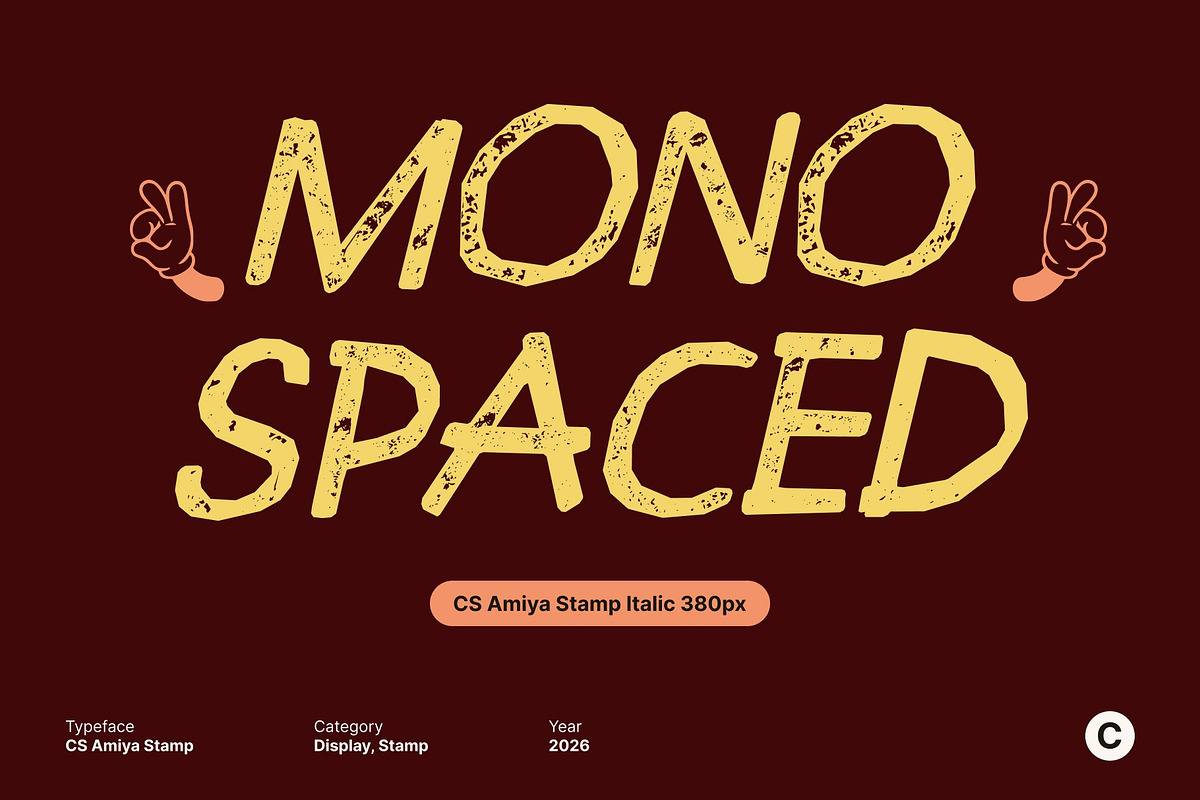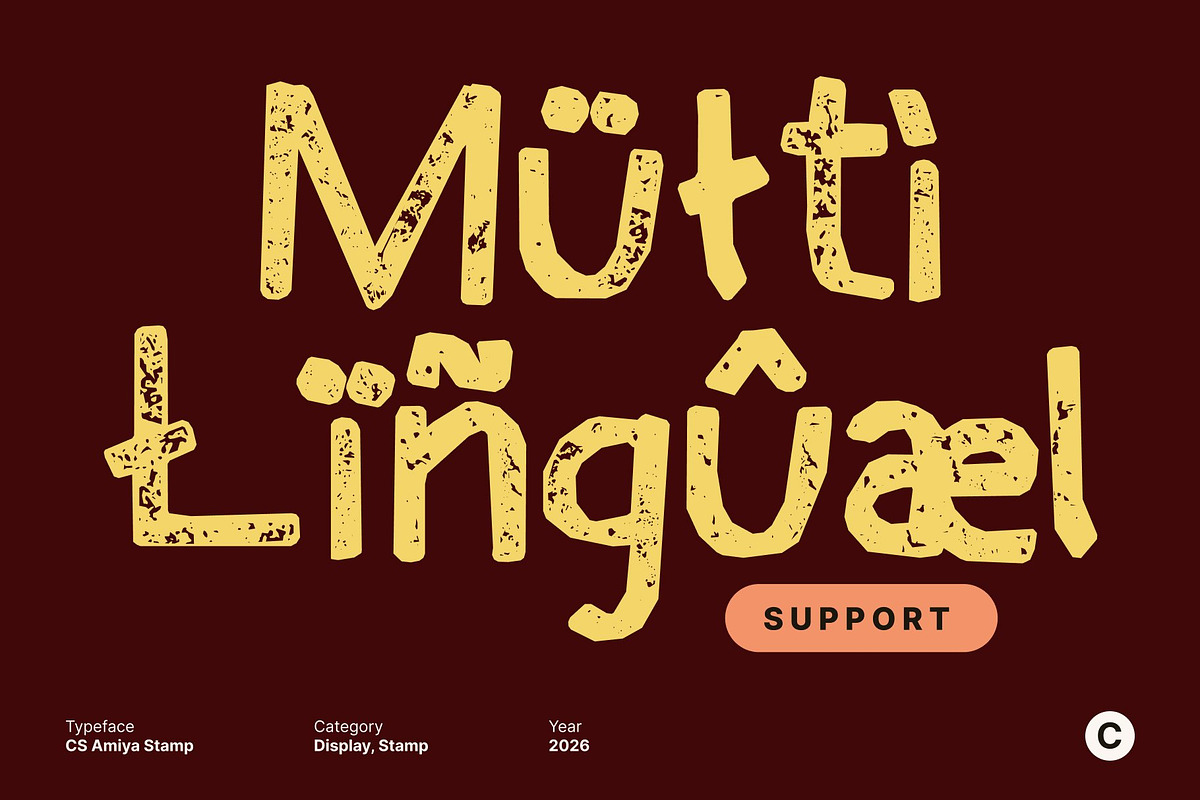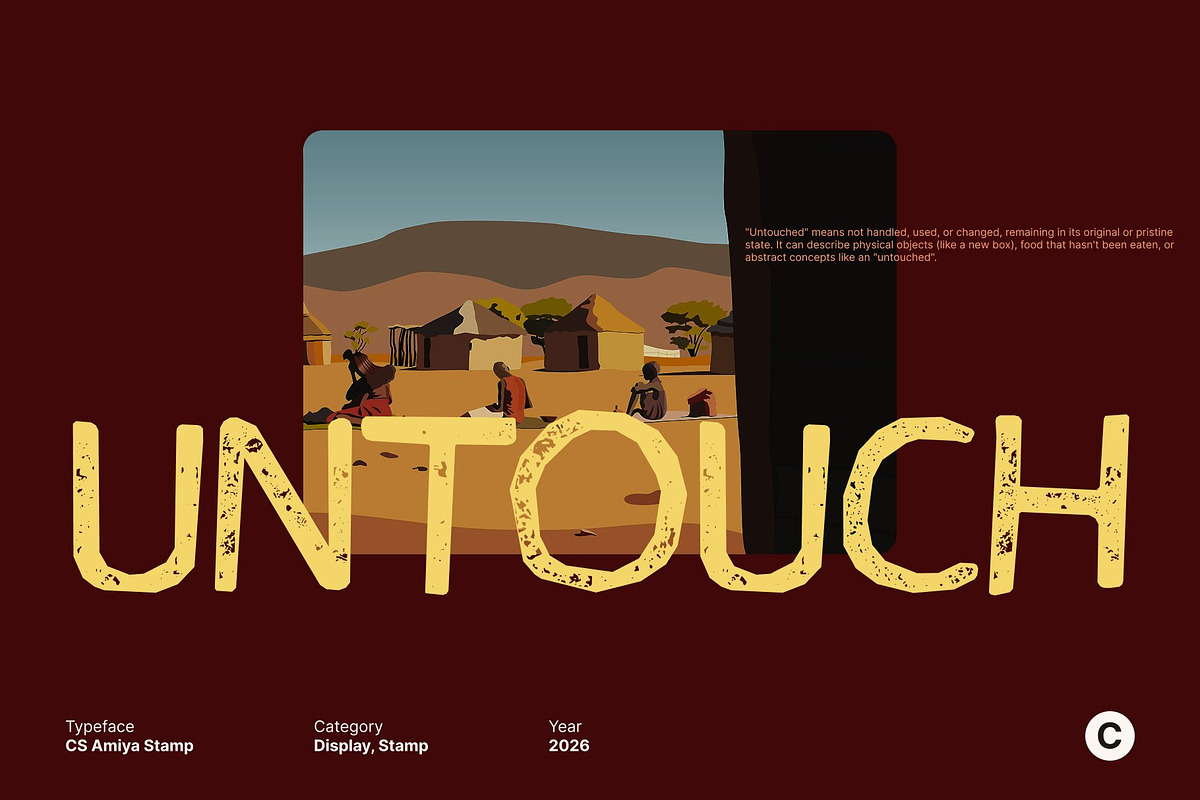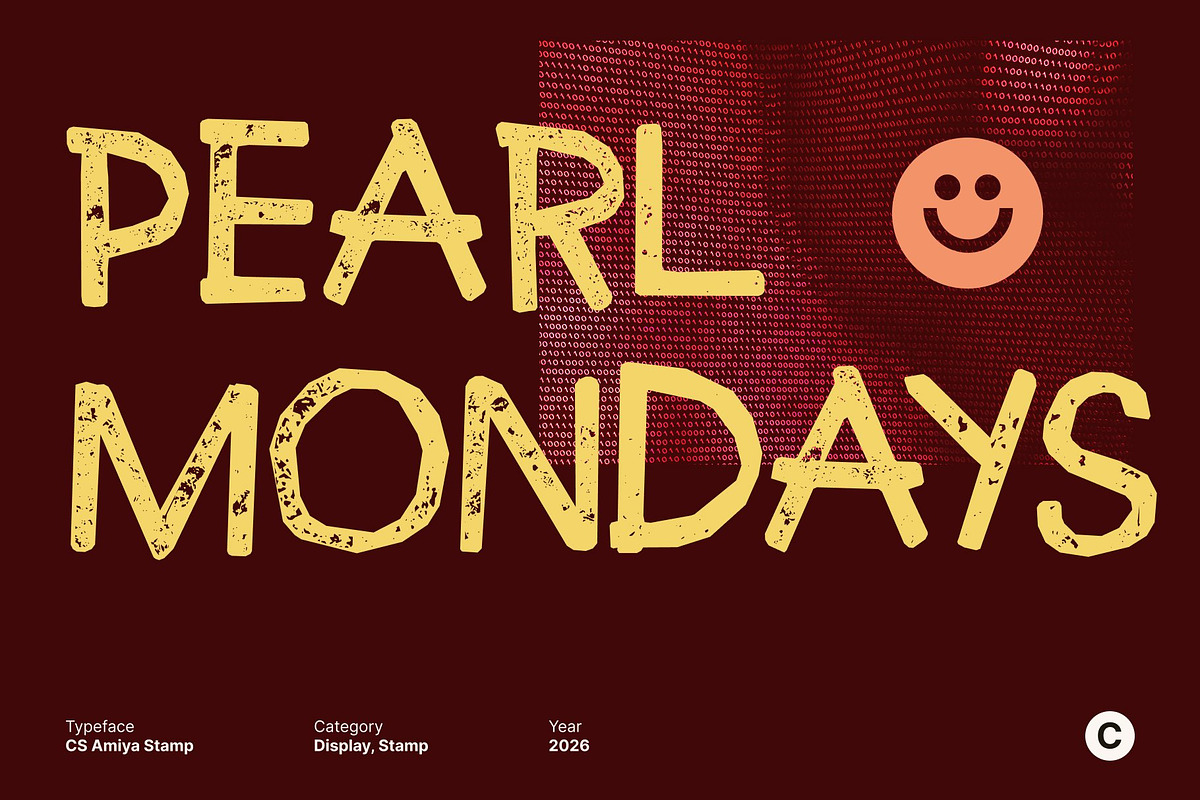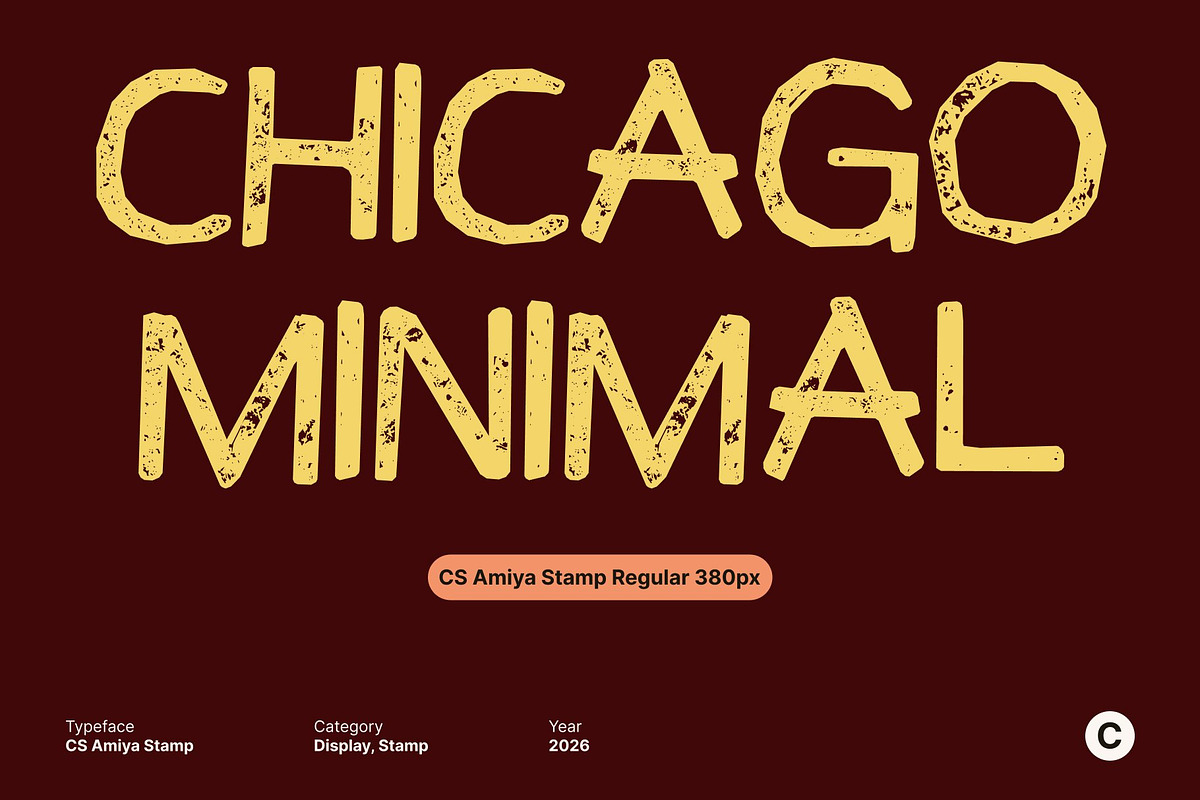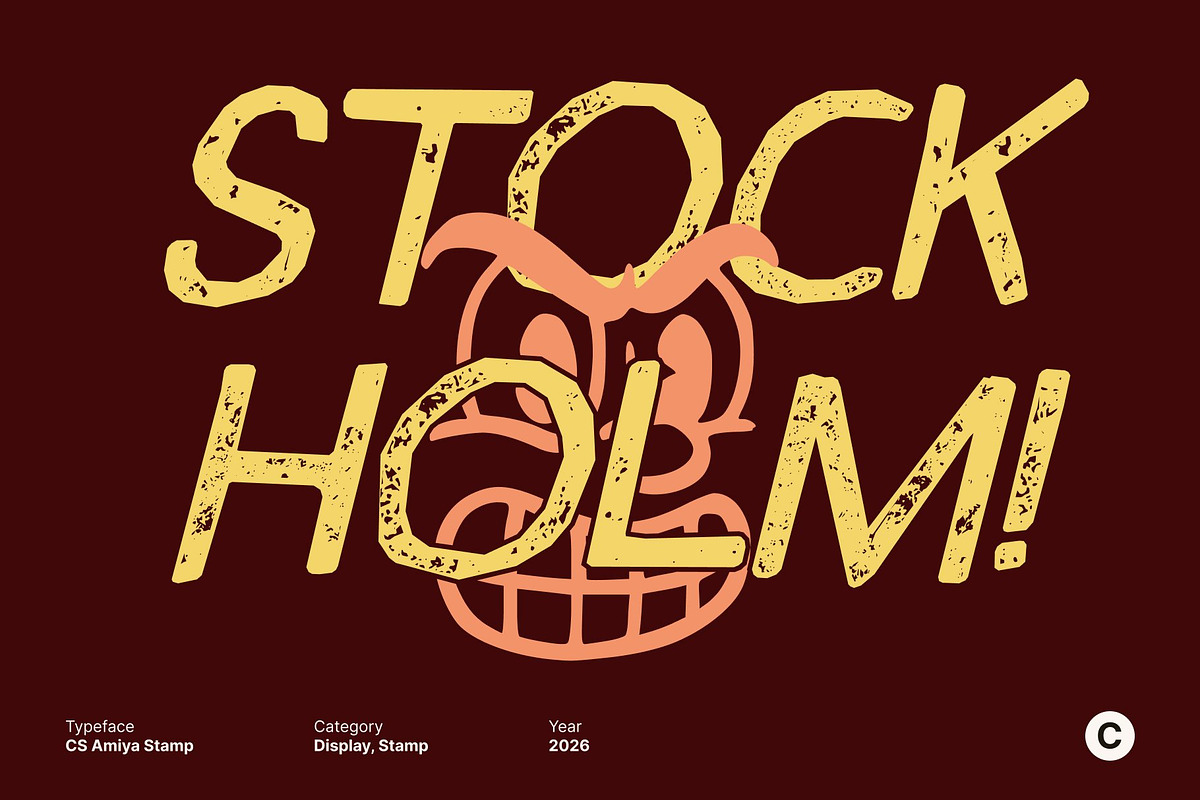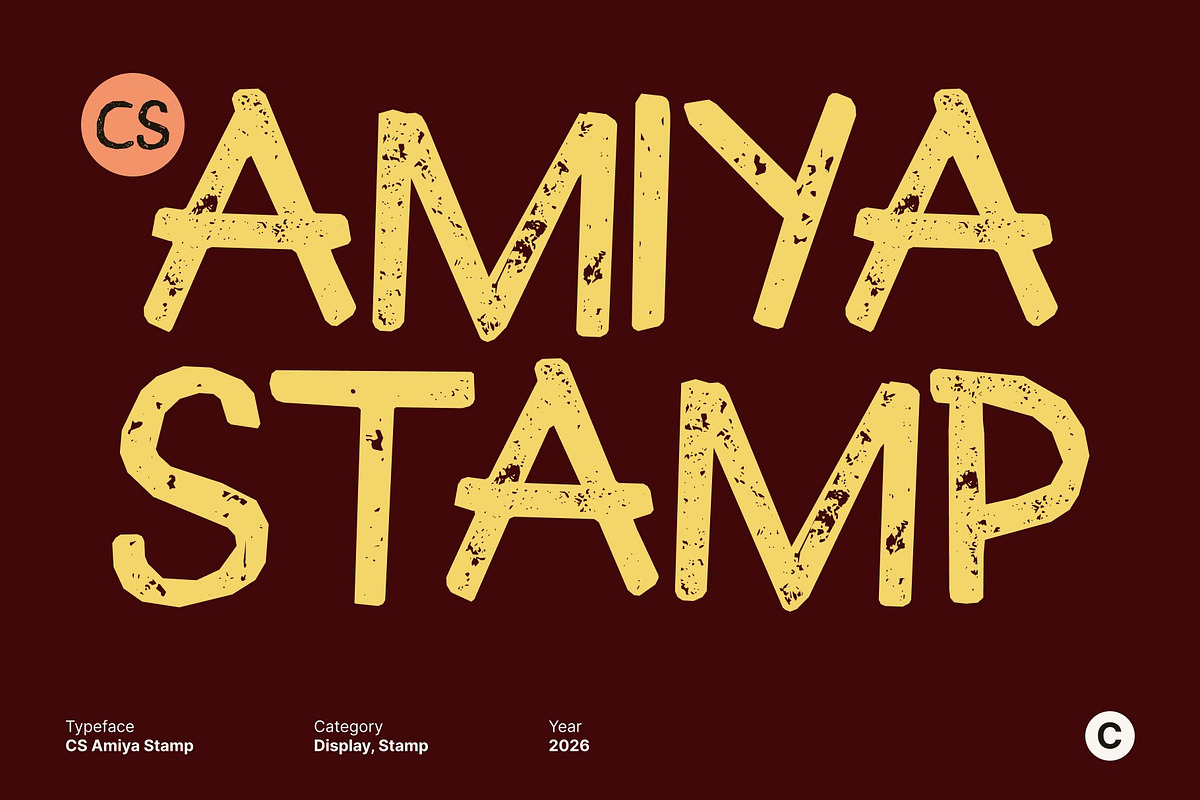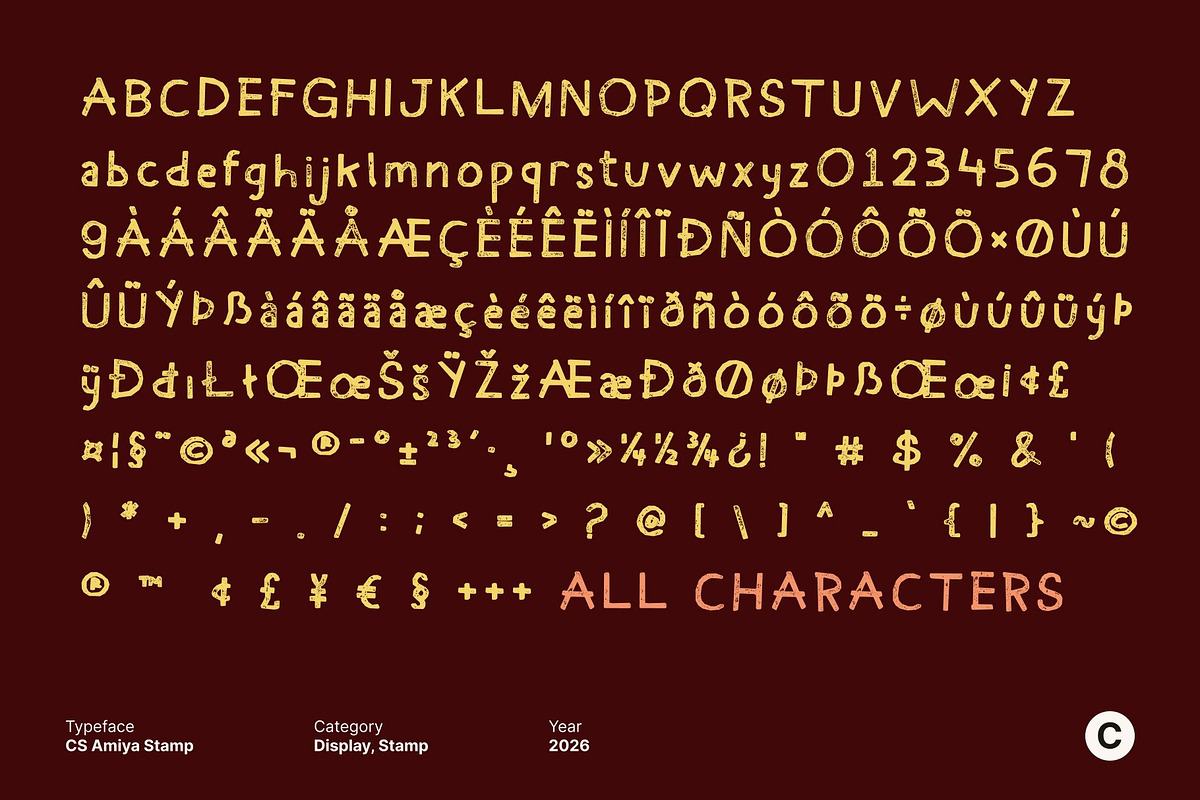
CS Amiya Stamp
CS Amiya Stamp – Expressive Handwritten Display with Geometric Charm
Handwritten Warmth Meets Modern Geometric Style This is a handwritten display font that blends friendly, expressive strokes with subtle geometric structure. Its thoughtfully designed letterforms balance natural hand-drawn movement with clean, modern proportions, creating a distinctive style that feels both playful and precise.
Authentic Hand-Drawn Strokes with Expressive Personality The organic flow of delivers a warm, approachable character. Each letter feels naturally drawn, capturing the spontaneity and emotion of handwriting. This expressive quality adds personality and charm, making designs feel human, lively, and creatively engaging.
Stamp Texture for Artistic Depth and Handmade Feel Enhanced with a subtle stamp texture, this font gains an artistic, tactile dimension. The lightly distressed surface introduces a handcrafted, imperfect finish that mimics ink pressed onto paper. This texture enriches the visual depth and gives the font a genuine, artisanal character without sacrificing clarity.
Perfect for Branding, Posters, and Playful Editorial Design This is ideal for branding, posters, packaging, lifestyle visuals, and fun editorial layouts. It works beautifully for logos, eye-catching headlines, creative social media graphics, and modern content that needs warmth with structure. Its blend of handwritten expression, geometric clarity, and stamp texture makes it perfect for designs that feel modern, approachable, and full of personality.